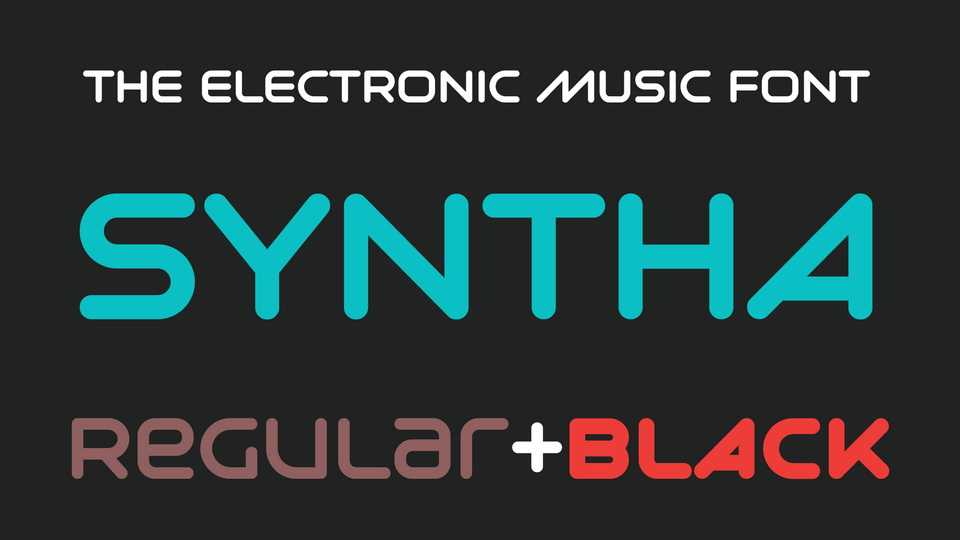
Syntha Nova Font Family › Fontesk – Download Grátis
Download Syntha Nova typeface, a display font family in two weights inspired by the electronic music culture. Syntha Nova could be very useful for creating DJ, Record label or Music platform logos, party flyers and festival posters.
Designer: Ivan Filipov